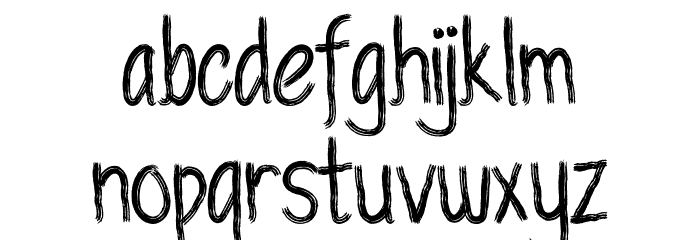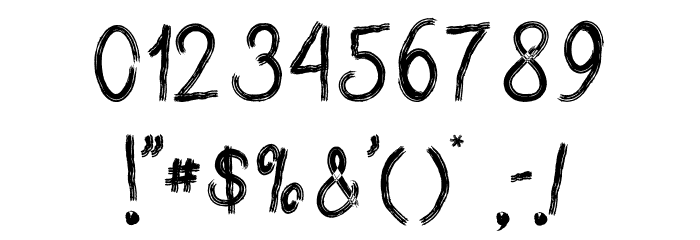
Black Wood Font
This font features a rugged, hand-drawn style with a textured appearance that mimics the look of wood grain or brush strokes. The characters are uneven and slightly irregular, giving it a natural and organic feel. The uppercase and lowercase letters maintain a consistent style, with a playful yet bold presence. Numbers and special characters follow the same design, ensuring a cohesive look across all text. The font's unique aesthetic makes it stand out, perfect for projects that require a touch of creativity and individuality.
A rugged, hand-drawn font with a textured, wood-like appearance.
- Font: Black Wood
- Proposed Projects: Ideal for posters, album covers, branding for eco-friendly products, or any project needing a rustic, artistic touch.